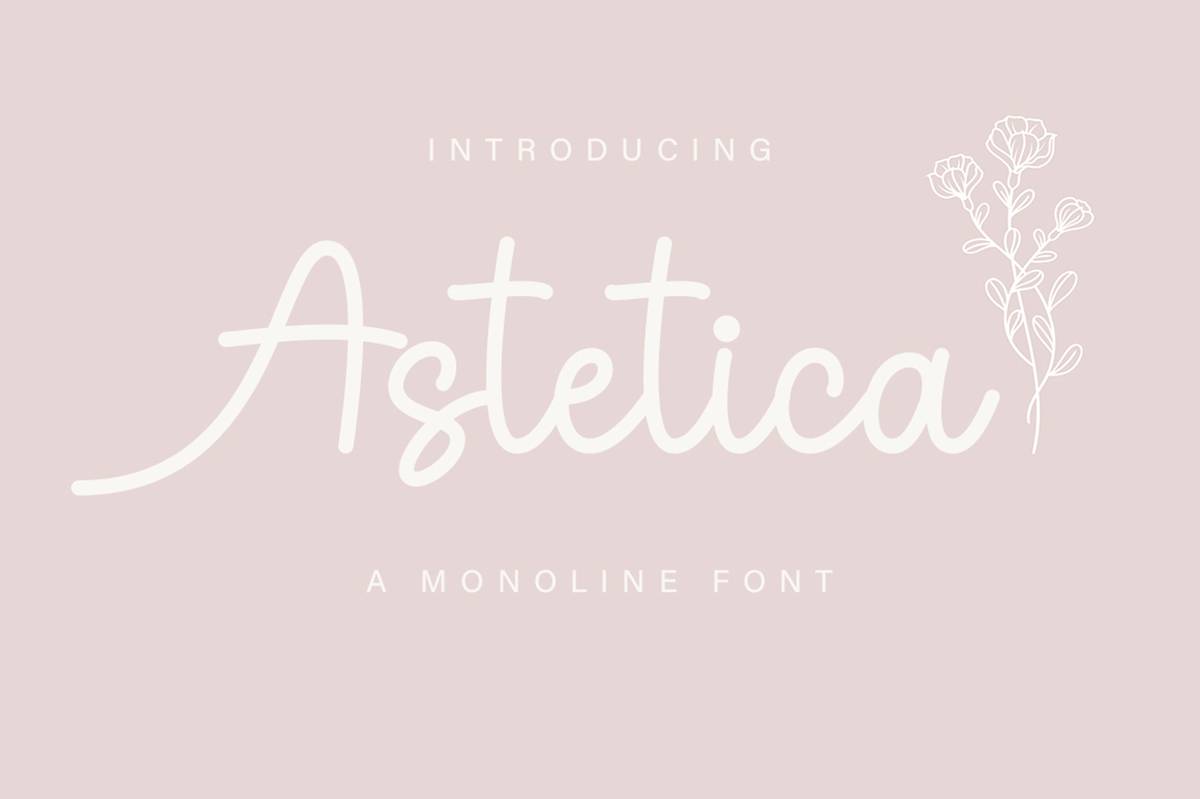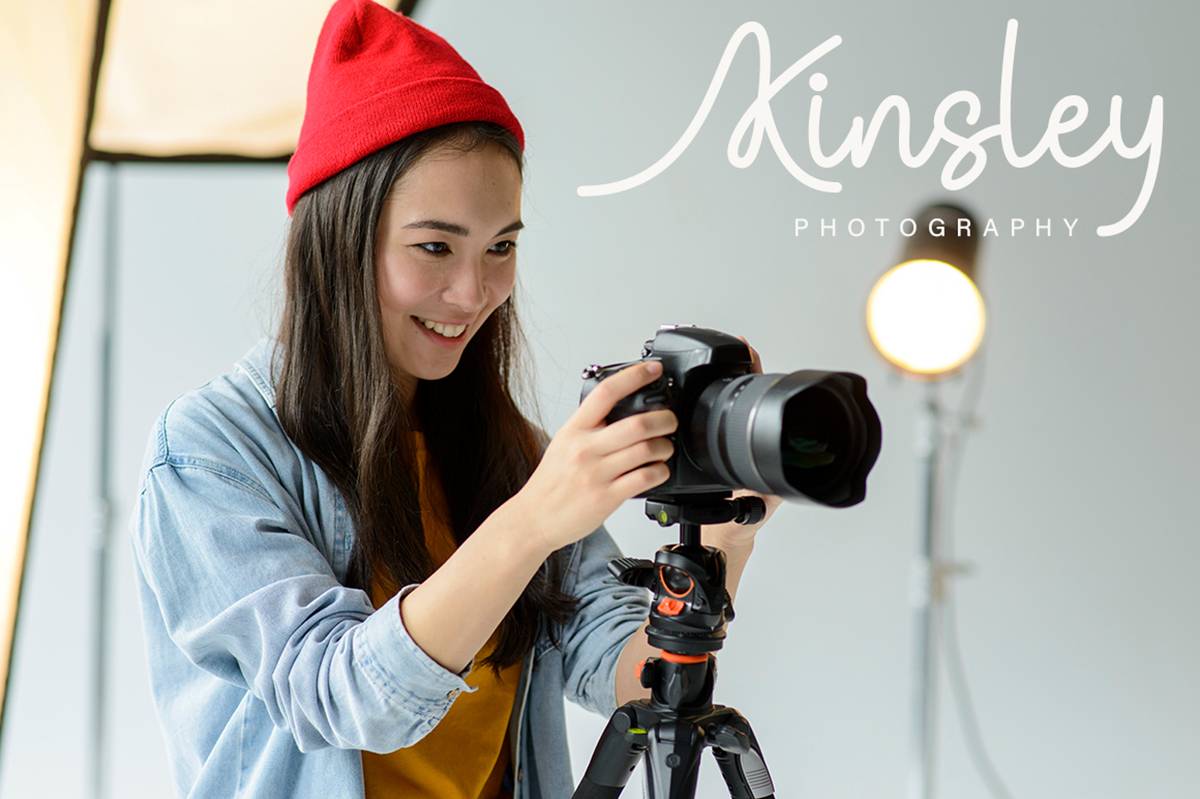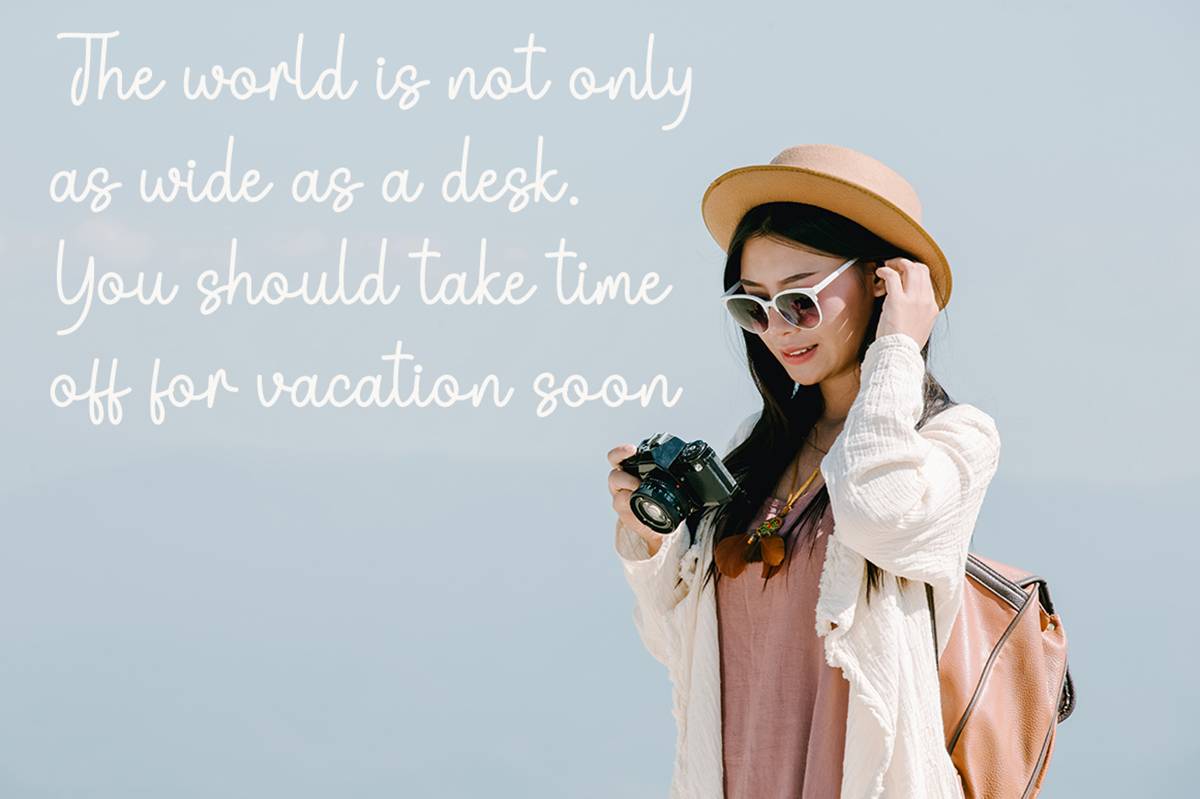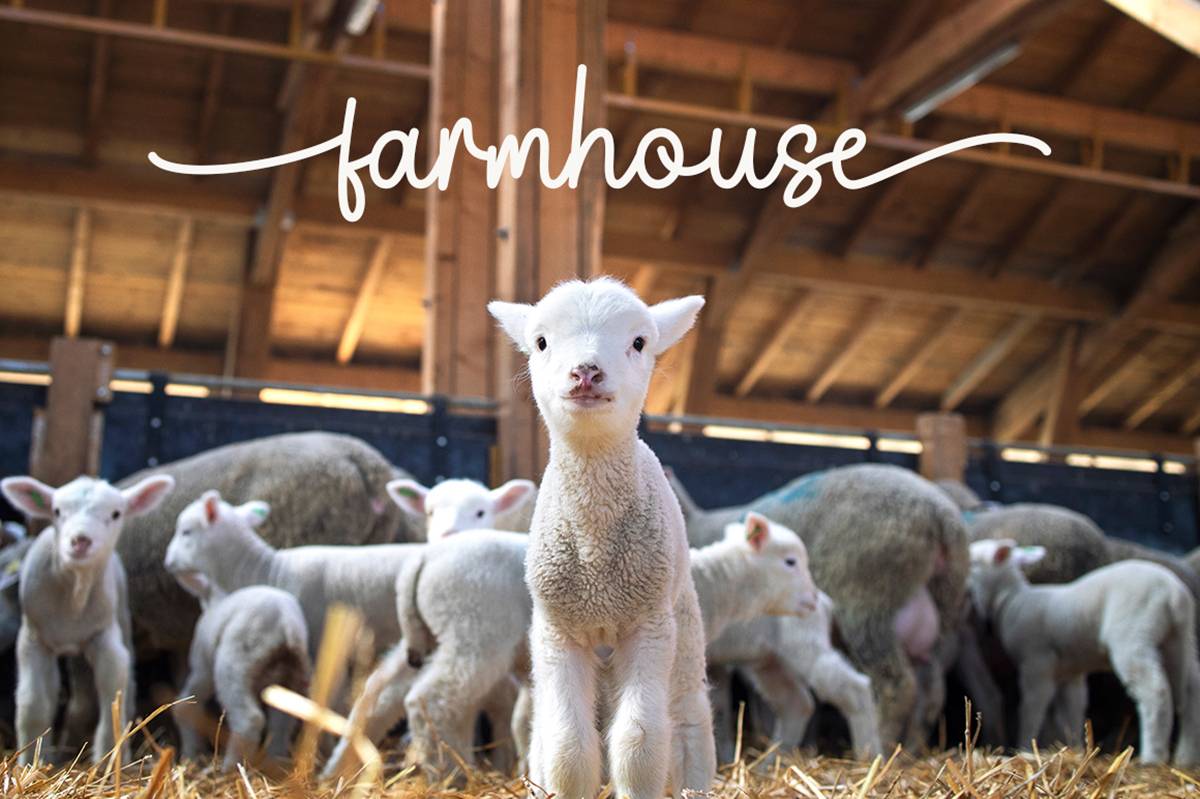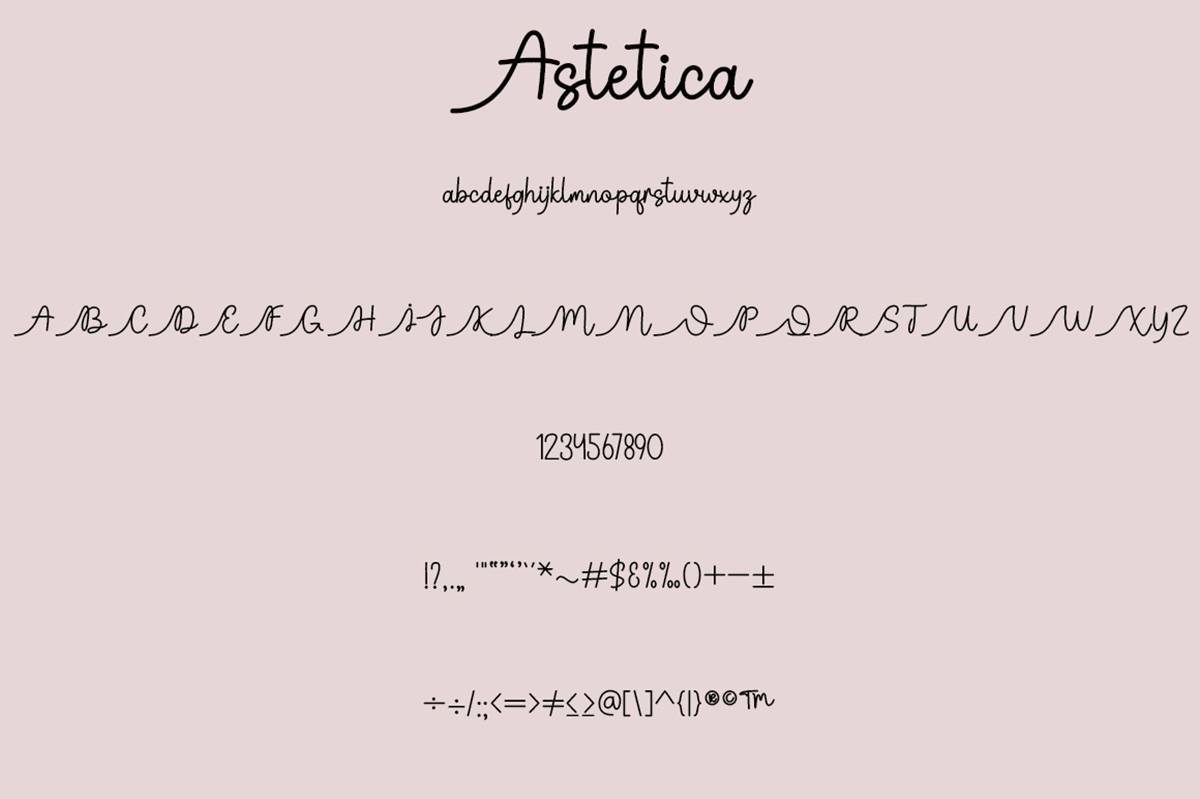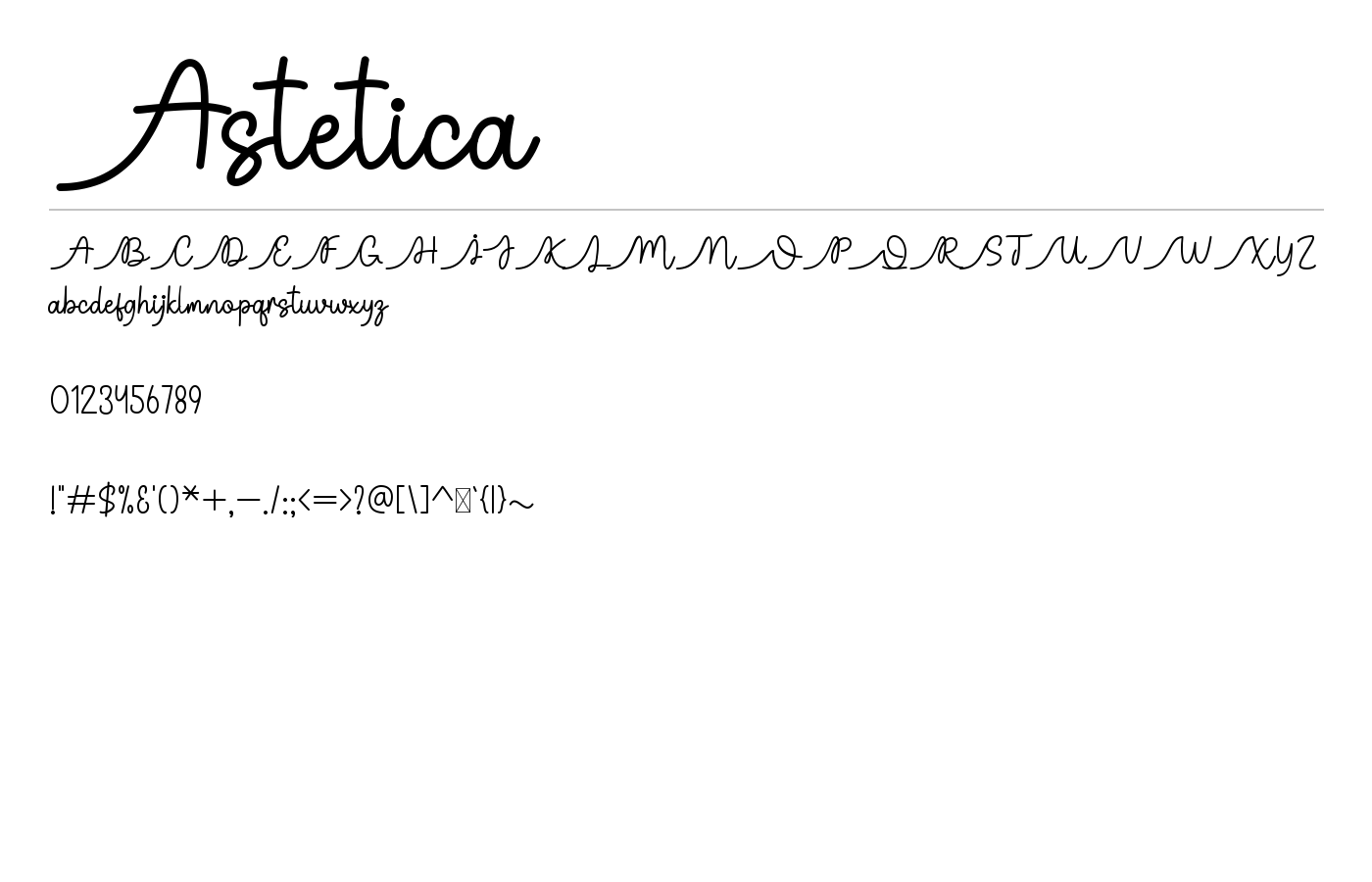
Astetica is a delicate, lightweight script font with a playful and elegant handwritten style, featuring tall, narrow letterforms and smooth, flowing connections. Its charming curves and slender strokes make it perfect for creative branding, invitations, and feminine or artistic projects. This font’s graceful personality adds a personal touch while maintaining readability for decorative uses.
Astetica Font
About Astetica Font
| Font family | Astetica Font |
| Designer | Wahyudi |